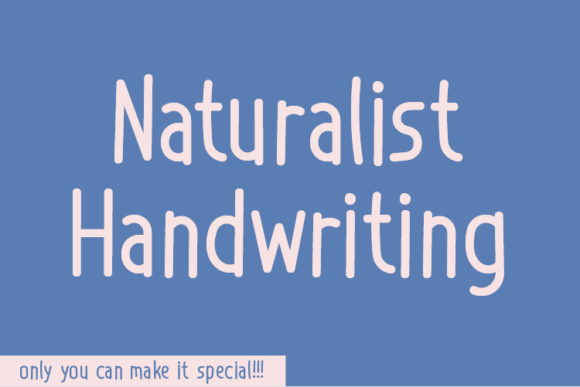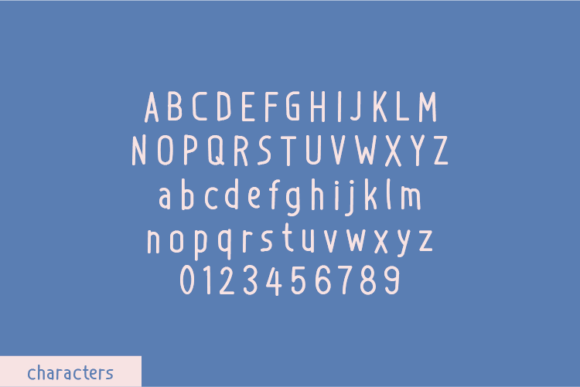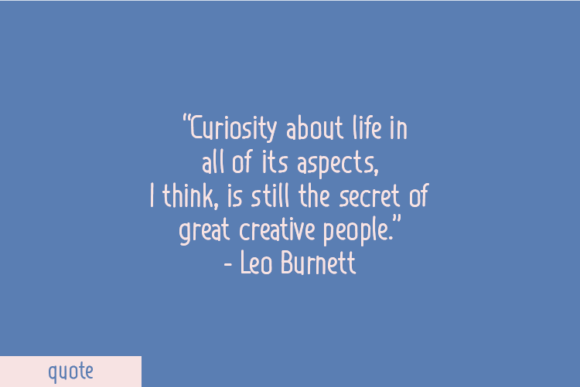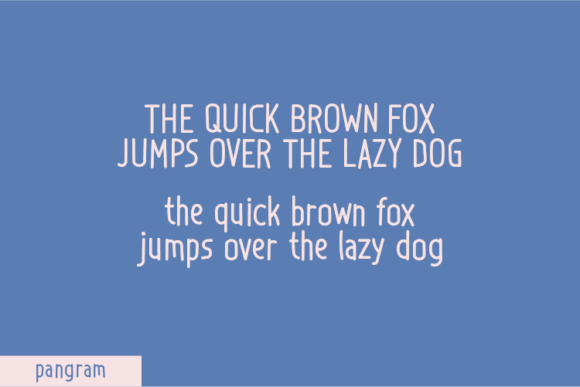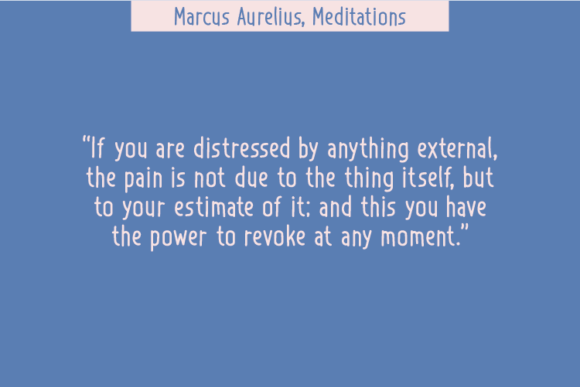
About Naturalist Handwriting Font
The Naturalist Handwriting Font Download is a casual yet neat handwritten typeface designed to bring personality and clarity to your creative projects. With its smooth strokes and natural flow, this font strikes the perfect balance between playful charm and professional readability.
Whether you’re working on craft projects, digital designs, or business presentations, Naturalist Handwriting adapts effortlessly to your needs. Its approachable style makes it equally suitable for formal layouts and fun, personal creations. This versatility ensures that Naturalist Handwriting can quickly become one of your favorite go-to fonts.
Features of Naturalist Handwriting Font
When you choose the Naturalist Handwriting Font Download, you’ll enjoy features such as:
Casual handwritten style with a clean, natural appearance
Neat letterforms that provide excellent readability
Smooth, balanced strokes that create a cohesive design
Adaptability across digital, print, and craft projects
Timeless aesthetic that works in both modern and classic layouts
These features give designers the flexibility to use Naturalist Handwriting in a wide range of applications.
Best Uses for Naturalist Handwriting Font
The Naturalist Handwriting Font Download works beautifully across many creative projects, including:
Crafts and DIY projects – Add a personal, handmade feel to your designs
Digital designs – Perfect for blogs, websites, and online graphics
Invitations and greeting cards – A neat and casual look for weddings, birthdays, and celebrations
Business presentations – Stylish text that remains professional and readable
Social media content – Create approachable posts that connect with audiences
Posters and flyers – Eye-catching typography for promotional materials
Why Choose Naturalist Handwriting Font
The Naturalist Handwriting Font Download stands out because it combines a natural handwritten look with practical usability. Unlike overly stylized fonts, its neat structure ensures readability without sacrificing personality. This makes it especially valuable for designers who want to add warmth and character while keeping their text professional.
Designers appreciate the font’s flexibility, as it works just as well for personal crafts as it does for polished branding or presentation materials. Its approachable style ensures your projects always feel friendly, creative, and visually balanced.
The Naturalist Handwriting Font Download is a casual and neat handwritten script designed to be versatile, approachable, and stylish. With its smooth strokes, neat letterforms, and wide range of applications, it’s the perfect typeface for invitations, crafts, branding, social media, and more.